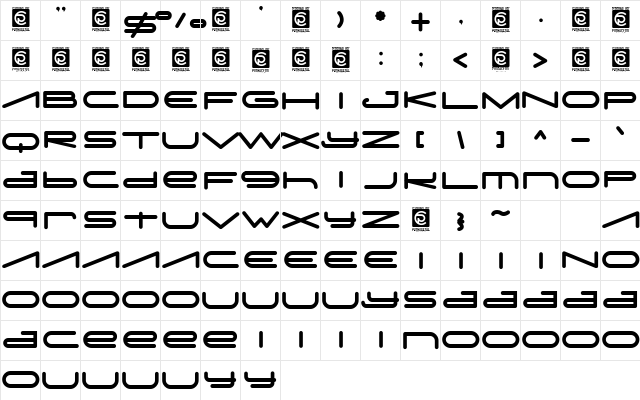
Digitechno FreeVersion Font Preview
Digitechno FreeVersion
Design Context for Digitechno Typeface
Digitechno has a distinctly futuristic character, with geometric precision and clean angles that feel at home in technology, gaming, and sci-fi contexts.